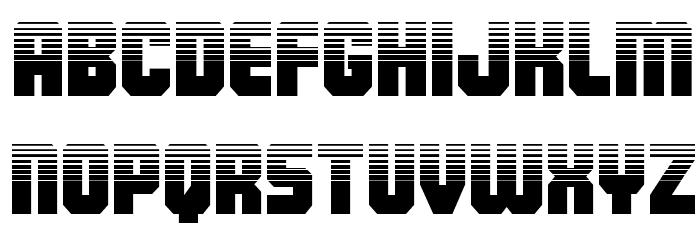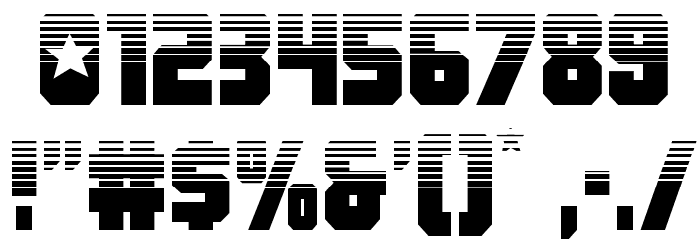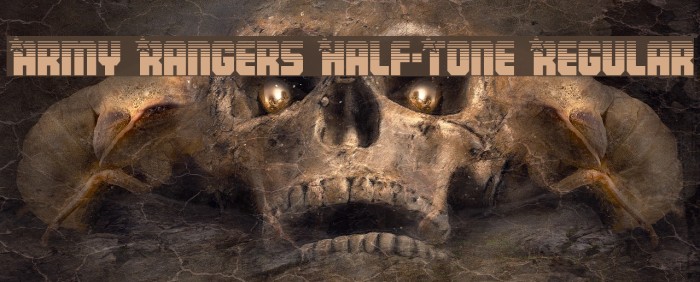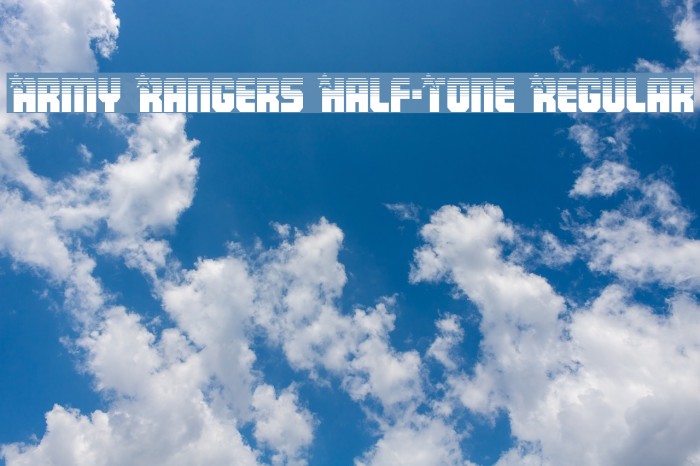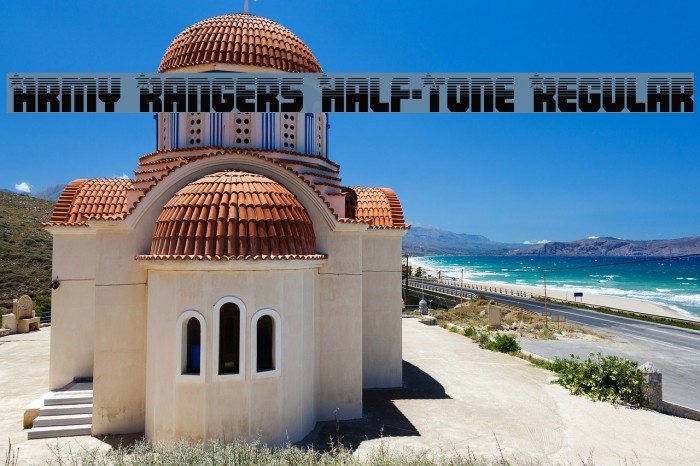
Army Rangers Half-Tone Regular Font
This font features a bold, geometric design with a distinctive half-tone pattern that creates a sense of depth and texture. The uppercase letters are blocky and robust, with a unique striped effect that gives them a modern, industrial feel. The numbers and special characters follow the same design principles, ensuring consistency across all elements. The font's strong visual impact makes it suitable for attention-grabbing headlines and logos. Its structured appearance is reminiscent of military or industrial themes, making it ideal for projects that require a bold, authoritative presence.
A bold, geometric font with a half-tone pattern, ideal for impactful headlines.
- Proposed Projects: Perfect for military-themed posters, industrial design projects, branding, and logos.